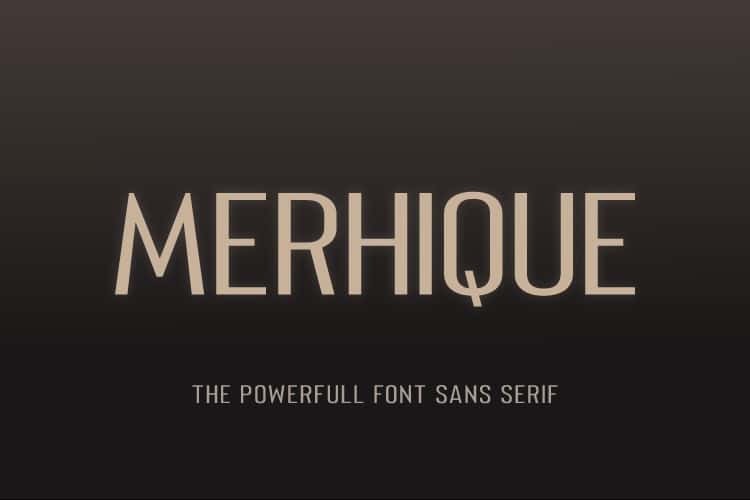
Merhique Font Family
Merhique is a stronger, timeless, and stunning all caps sans serif font that looks powerfull in layouts, headers, web, and many other contexts!
With four different weights, it’s perfect for magazine layouts, invitations or any other project you’re working on!